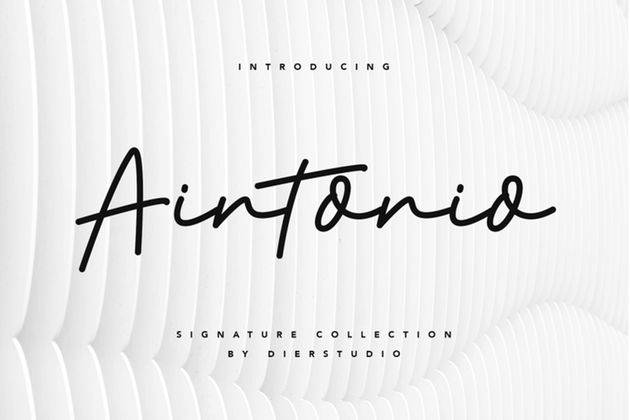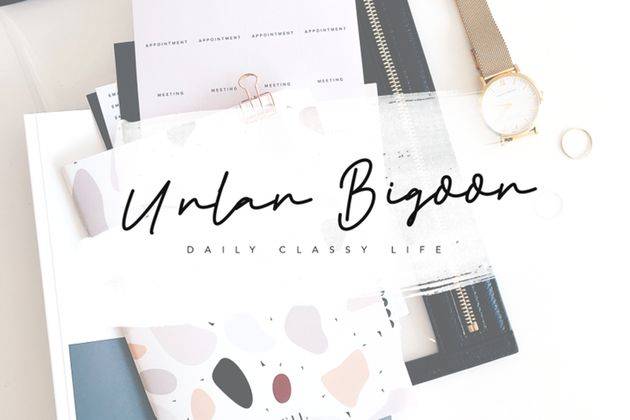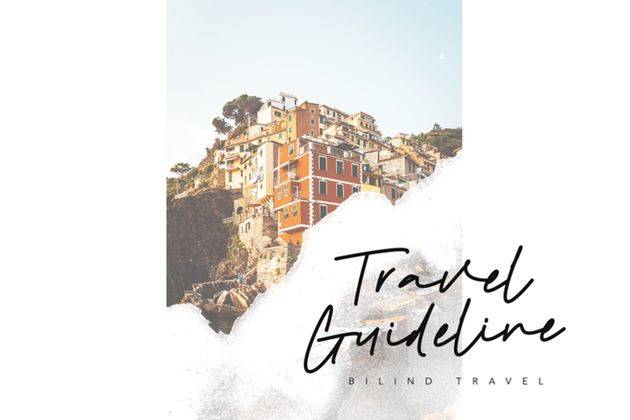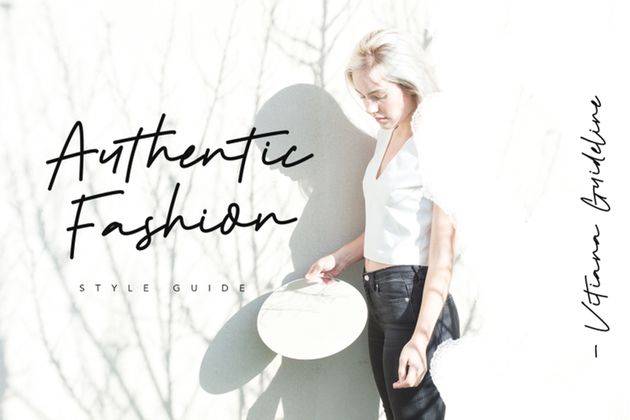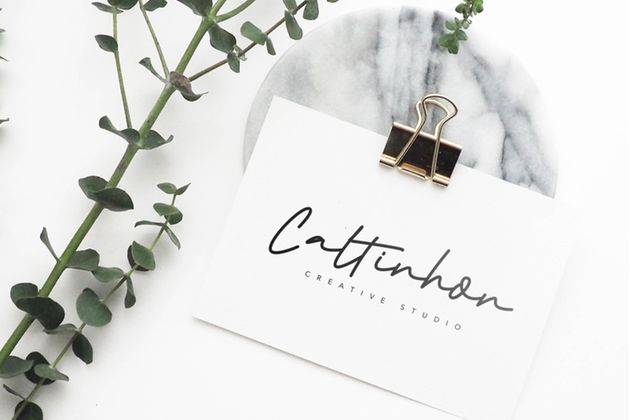
Aintonio Handwriting Script is a lively and expressive script font that mimics natural, flowing handwriting with a casual yet refined feel. Its tall, narrow letterforms and slightly irregular strokes give it a personal, approachable character, making it perfect for creative projects, invitations, and branding that seek an authentic, friendly touch. This font works best for headlines, logos, and decorative text where a handwritten charm is desired.
Aintonio Handwriting Script Font
About Aintonio Handwriting Script Font
| Font family | Aintonio Handwriting Script Font |
| Designer | Ahmad Khaidir |